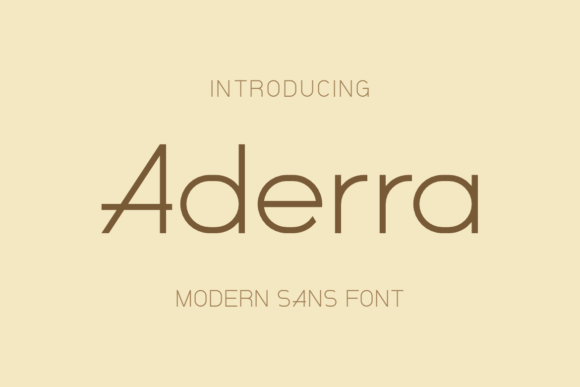
The Aderra Font: A Modern Sans Serif Game-Changer
I’ll never forget the design struggle I faced while working on a project for a trendy boutique hotel. My client wanted a font that was both modern and elegant, but I was coming up blank. That’s when I stumbled upon the Aderra font, and it instantly became my go-to. In this article, I’ll share my love for this font, its features, and how to make the most of it in your designs.
An Honest Review of Aderra Font
What I Love About Aderra Font ✨
- ✅ Modern and sleek design: Aderra’s clean lines and minimalist aesthetic make it perfect for modern designs.
- ✅ Versatile: This font works well for a wide range of projects, from branding and advertising to packaging and digital media.
- ✅ Easy to read: Aderra’s clear and concise letterforms ensure that your message gets across, even at smaller font sizes.
- ✅ OpenType features: Aderra supports OpenType features, including stylistic alternates, ligatures, and more.
- ⚠️ Limited character set: Aderra’s character set is clean and minimal, but it might not have all the special characters you need.
- ⚠️ Not ideal for body text: While Aderra is easy to read, it’s not the best choice for long-form body text due to its modern, minimalist design.
The Backstory of Aderra Font
Aderra font was designed with the modern designer in mind. Its creator aimed to craft a font that was both clean and elegant, with a focus on versatility and legibility. The result is a font that’s perfect for a wide range of projects, from branding and advertising to packaging and digital media.
| Font Name | Aderra Font |
| Author | maikofarazhatta |
| What is Aderra font? | Aderra font is a modern sans serif font designed for versatility and legibility. |